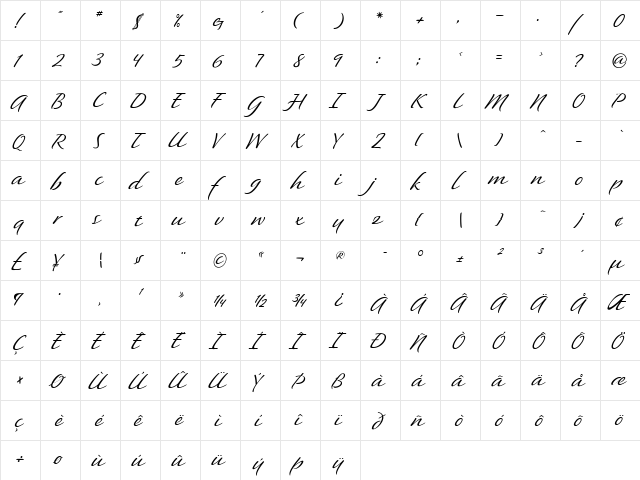
P22 Sweepy OT Regular
| Foundry | MichaelClark, P22 type foundry |
| Designer | Michael Clark |
Design Context for P22 Sweepy OT Typeface
P22 Sweepy OT takes a measured approach to typography — its balanced proportions and neutral character make it a reliable workhorse for both digital and print work.